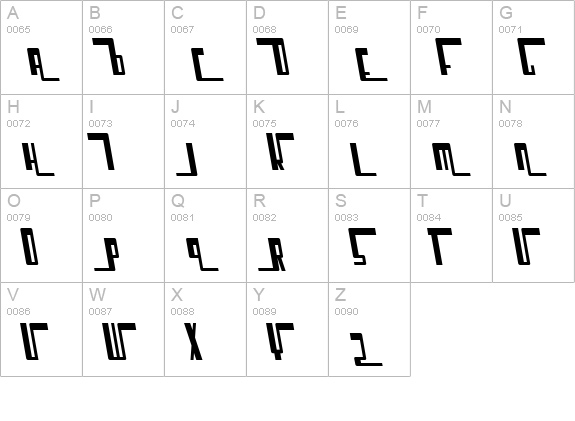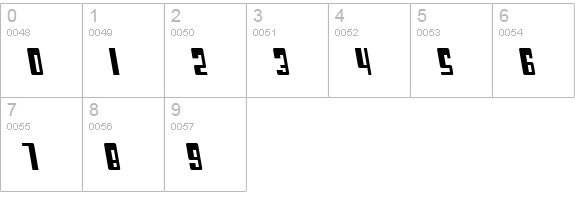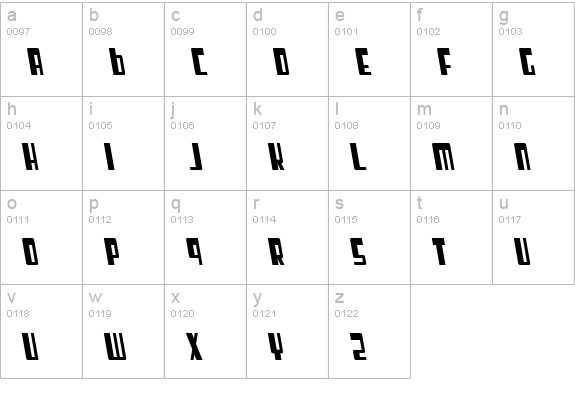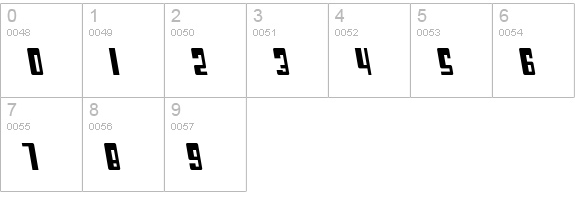
SF Cosmic Age Condensed Oblique Font Details
SF Cosmic Age Condensed Oblique is a distinctive, condensed-width, italic variant in the SF typeface family \xE2\x80\x94 well suited to design and typography projects.
SF Cosmic Age Condensed Oblique font is a stunning typeface that embodies the essence of futuristic designs. With its sleek and modern appearance, this font is perfect for projects that require a touch of sophistication and innovation. The condensed letterforms add a sense of efficiency and space-saving, making it ideal for headlines, titles, and logos. The oblique slant adds a dynamic and energetic flair to the font, giving it a sense of movement and forward-thinking. The sharp angles and unique curves of the characters create a sense of cosmic energy, making it a great choice for science fiction and space-themed designs. One of the best things about SF Cosmic Age Condensed Oblique font is that it is freely available to download at FontsMarket.com. This means that you can easily access and use this font for personal and commercial projects without any limitations. Whether you are a professional designer or a hobbyist, this font allows you to add a touch of cosmic beauty to your creations without breaking the bank. With its versatility and striking aesthetic, SF Cosmic Age Condensed Oblique font is sure to make a lasting impression on your audience. So why wait? Download this incredible font today and bring your designs to the next level with its futuristic charm.